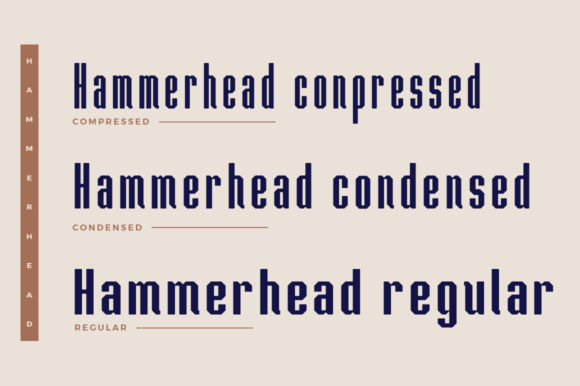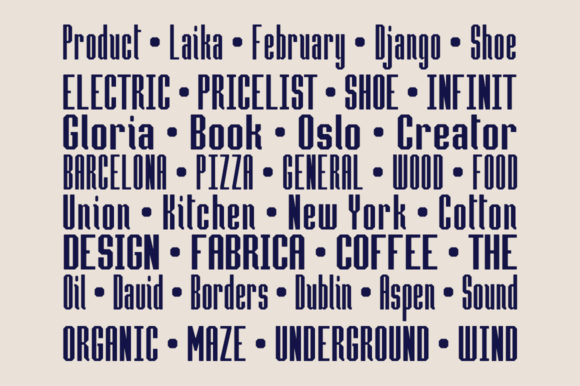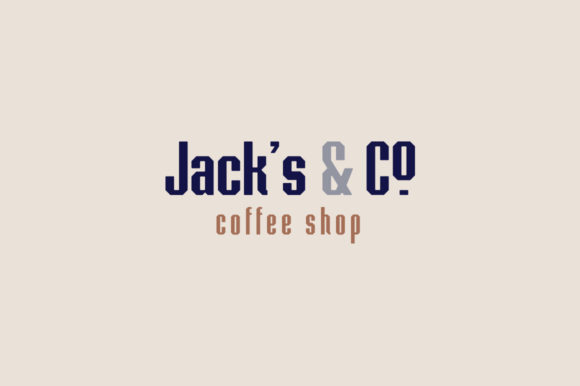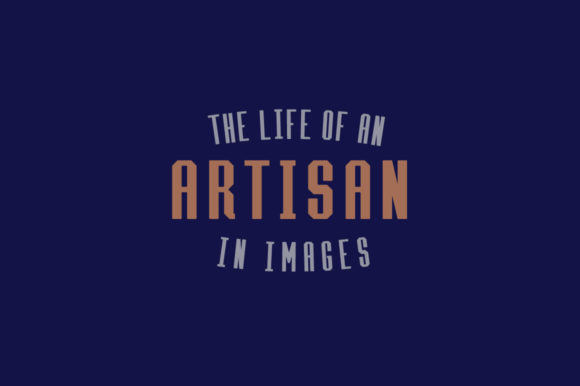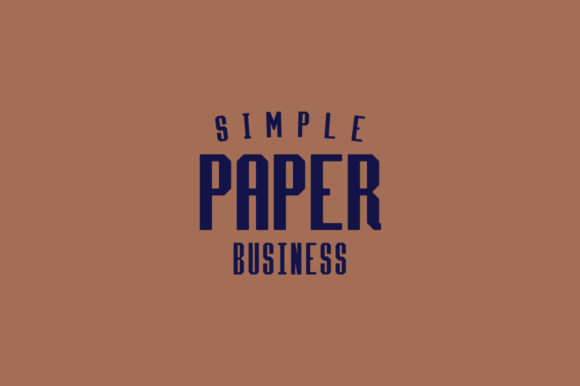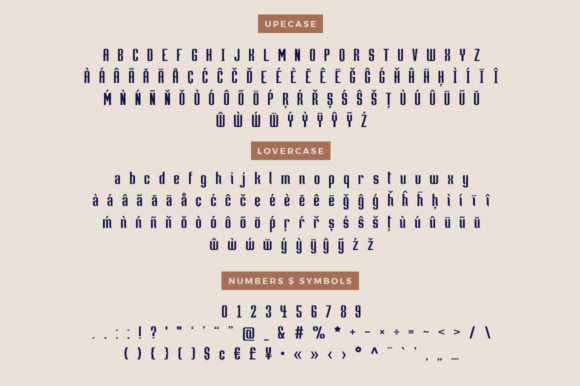
Hammerhead Font: Unleash Your Creative Potential with its Vintage Charm
In the world of typography, fonts play a crucial role in conveying messages, expressing emotions, and creating a lasting impression. For designers, crafters, and creative enthusiasts, finding the perfect font can be a daunting task. However, if you’re looking for a unique and stylish sans serif font with a vintage feel, look no further than Hammerhead Font. In this article, we’ll explore the distinctive features of Hammerhead Font, its benefits, and how it can elevate your design projects.
The Distinctive Charm of Hammerhead Font
Hammerhead Font is a one-of-a-kind sans serif font that boasts a bold and stylish charm. Its unique vintage feel is reminiscent of classic typography from the early 20th century, with clean lines, geometric shapes, and a distinctive character. The font’s design is inspired by the iconic hammerhead shark, with its broad, flat head and curved edges. This distinctive shape translates perfectly into a font that’s both modern and nostalgic.
Key Features of Hammerhead Font
So, what makes Hammerhead Font so special? Here are some of its key features:
- Unique Vintage Feel: Hammerhead Font has a distinctly bold and vintage charm that’s perfect for designers looking to add a touch of nostalgia to their projects.
- Clean Lines and Geometric Shapes: The font features clean lines, geometric shapes, and a minimalist aesthetic that’s perfect for modern designs.
- High Versatility: Hammerhead Font is highly versatile and can be used for a wide range of design projects, from logos and branding to posters, flyers, and more.
- Easy to Read: Despite its bold and stylized design, Hammerhead Font is easy to read, making it perfect for body text and headlines.
Benefits of Using Hammerhead Font
So, why should you choose Hammerhead Font for your design projects? Here are some benefits:
- Add a Touch of Nostalgia: Hammerhead Font’s vintage feel can add a touch of nostalgia to your designs, making them more memorable and engaging.
- Stand Out from the Crowd: With its unique and stylized design, Hammerhead Font can help your designs stand out from the crowd and grab attention.
- Perfect for Bold Statements: The font’s bold charm makes it perfect for making bold statements, announcing new products, or promoting special offers.
- Easy to Pair with Other Fonts: Hammerhead Font is easy to pair with other fonts, making it perfect for creating harmonious and balanced typography.
Design Inspiration with Hammerhead Font
To give you a better idea of how Hammerhead Font can be used in design, here are some inspiring examples:
- Logos and Branding: Use Hammerhead Font to create bold and memorable logos that make a lasting impression.
- Posters and Flyers: The font’s vintage feel and bold charm make it perfect for creating eye-catching posters and flyers.
- Packaging Design: Add a touch of nostalgia to your packaging design with Hammerhead Font, making your products stand out on store shelves.
- Web Design: Use Hammerhead Font to create bold and stylish web headers, buttons, and CTAs that grab attention.
In conclusion, Hammerhead Font is a unique and stylish sans serif font with a vintage feel that’s perfect for designers, crafters, and creative enthusiasts. Its distinctive charm, clean lines, and geometric shapes make it highly versatile and easy to read. Whether you’re looking to add a touch of nostalgia to your designs, make bold statements, or create memorable logos, Hammerhead Font is an excellent choice. So, get inspired by its bold charm and unleash your creative potential with Hammerhead Font.